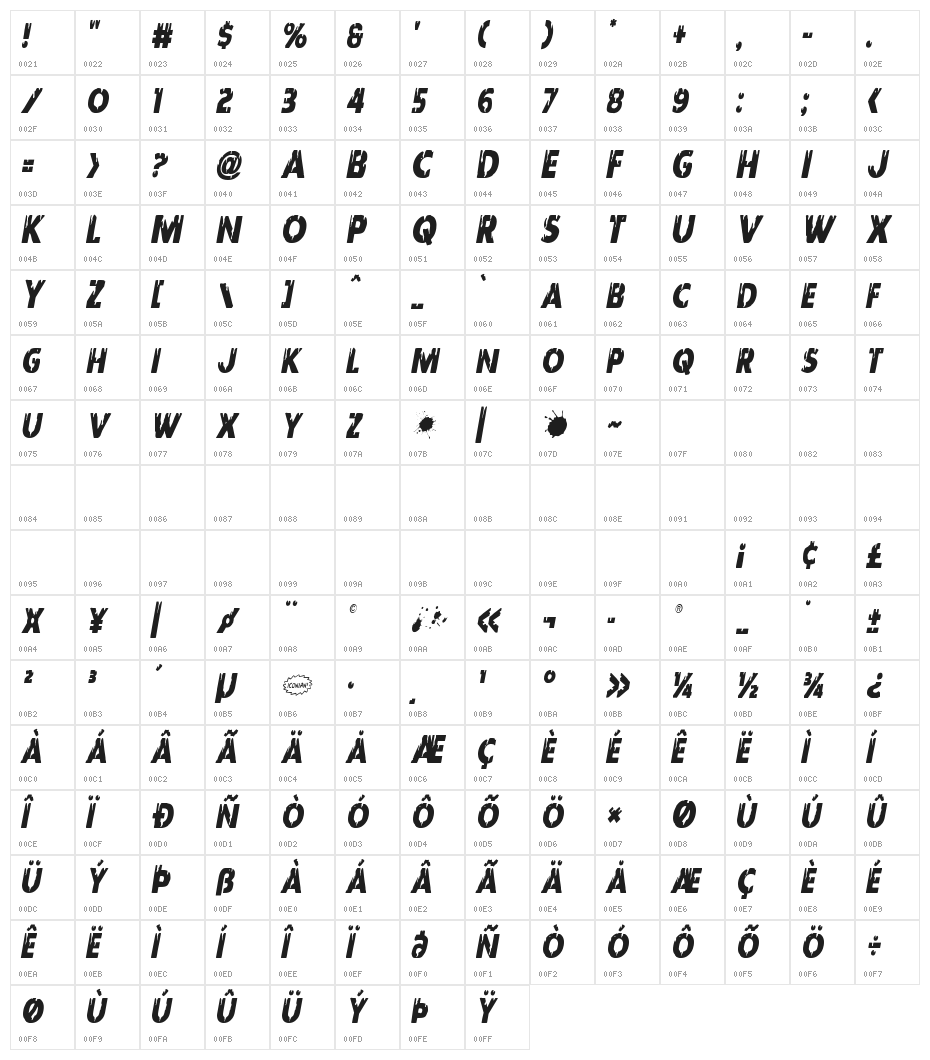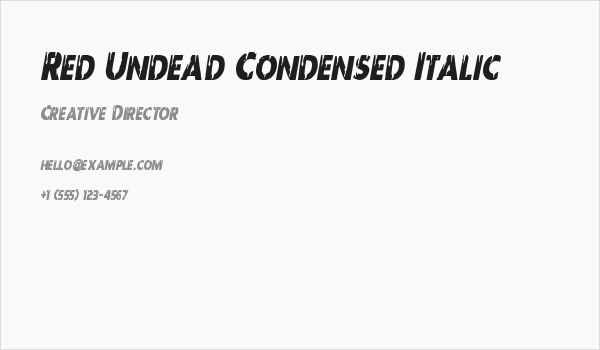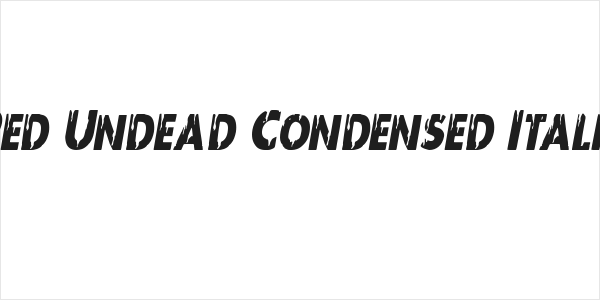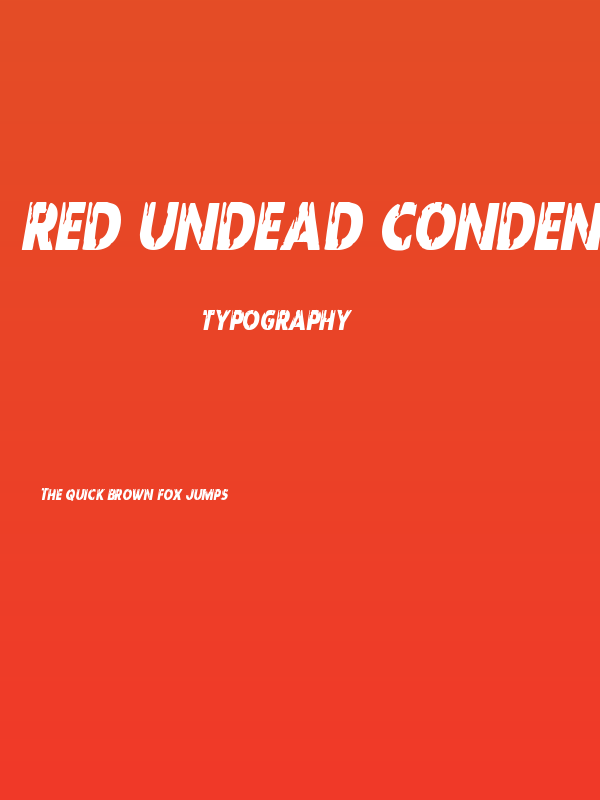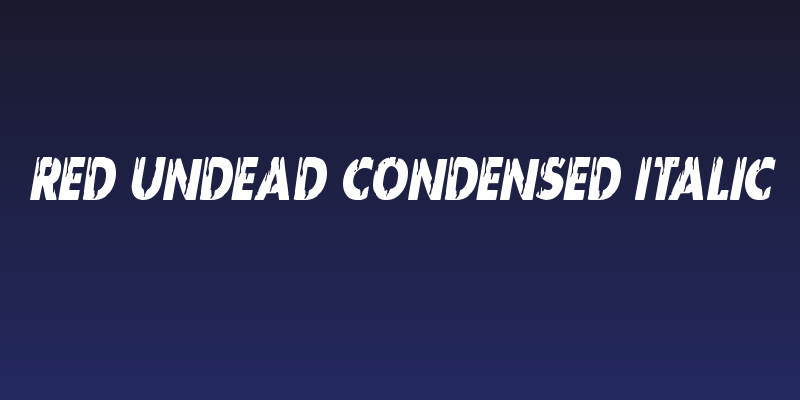
Red Undead Condensed Italic Font
Red Undead Condensed Italic Description
This font features a bold and condensed style with a distinct italic slant, giving it a dynamic and energetic appearance. The characters are designed with a distressed, grunge-like texture that adds a rugged and edgy feel. The uppercase and lowercase letters maintain a consistent style, with sharp angles and a slightly aggressive look. The numerals and special characters follow the same design principles, ensuring uniformity across all glyphs. This font is ideal for projects that require a bold statement or a rebellious, unconventional vibe.
| Overall Style | Edgy, Grunge, Modern |
| Proposed Projects | Perfect for music album covers, edgy posters, video game graphics, and rebellious branding. |